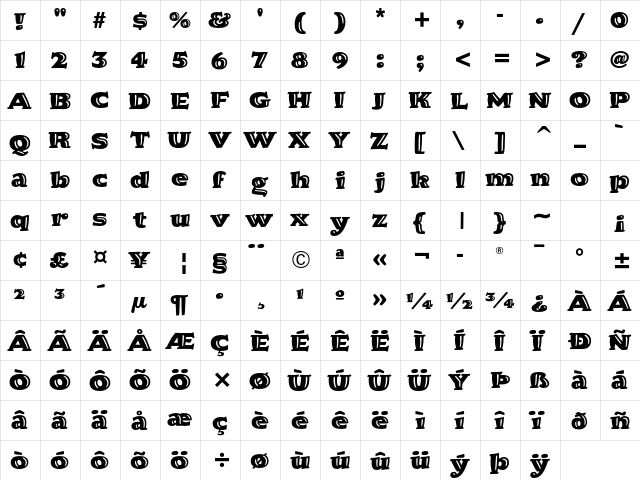
Hornpype ITC Std Regular
| Designer | Mott Jordan |
Design Context for Hornpype ITC Std Typeface
Hornpype ITC Std is a composed and adaptable typeface that performs quietly and consistently across a wide range of design contexts.
Originally released in 1997, this typeface is available in OpenType (OTF) format.